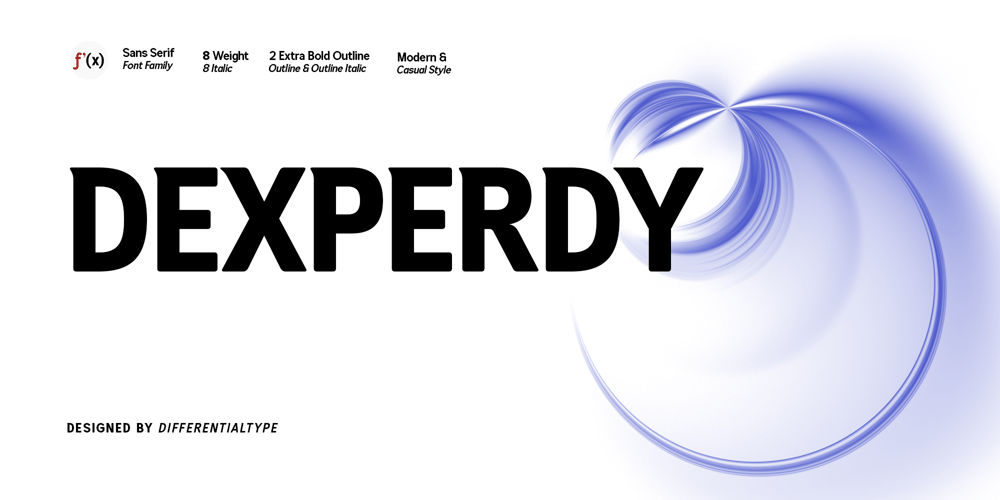
Dexperdy Font Family was designed by Sidik Sidik and published by Differentialtype. Dexperdy contains 18 styles and family package options. Experience the uniquely minimalist allure of Dexperdy, a modern sans serif font collection that speaks volumes with its clean lines and nuanced curves. This captivating font family encompasses eight distinct weights, ranging from ethereal Thin to assertive Extra Bold. With an unparalleled versatility, Dexperdy is perfectly equipped for a multitude of design applications – be it dynamic titles, striking logos, or impactful editorial work. Experience Dexperdy – a font family that effortlessly blends strength and subtlety to leave a lasting impression.